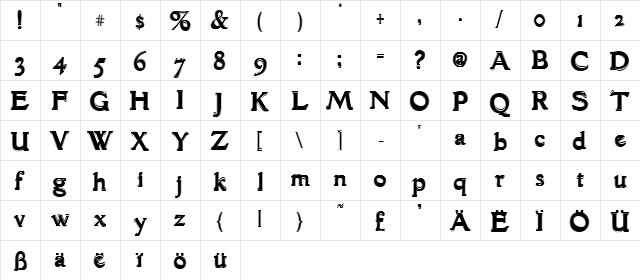
GranthamOutline Roman
Design Context for GranthamOutline Typeface
GranthamOutline is built around its visual character rather than neutral utility — its distinctive forms are designed to make an impression at display sizes.
Font Pairing: Pair with a clean neutral sans-serif for body copy to let GranthamOutline's character lead without overwhelming the composition.
Pro Tip: Use GranthamOutline exclusively at display sizes — it was designed to be seen, not read at length. Let a neutral companion handle body copy.